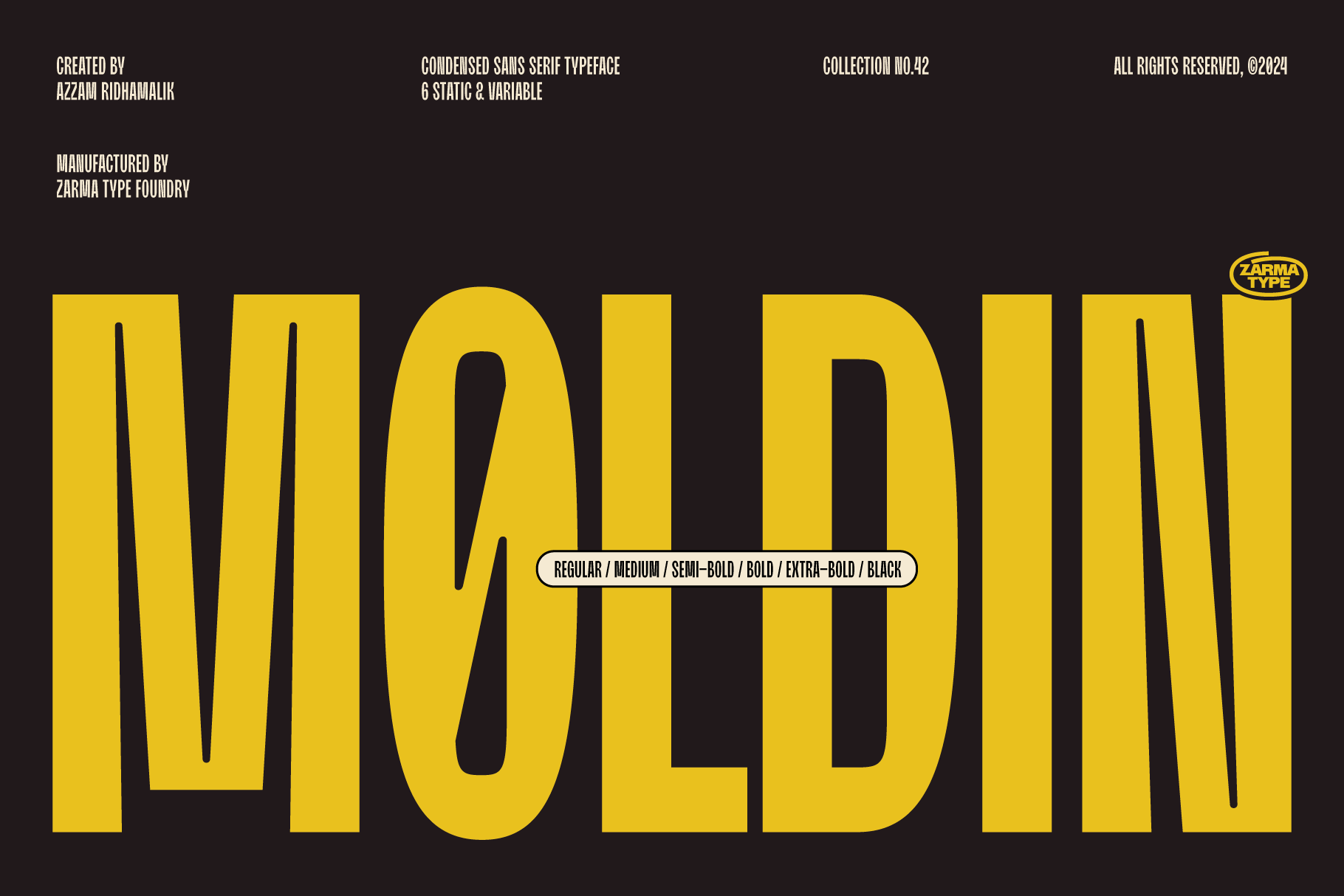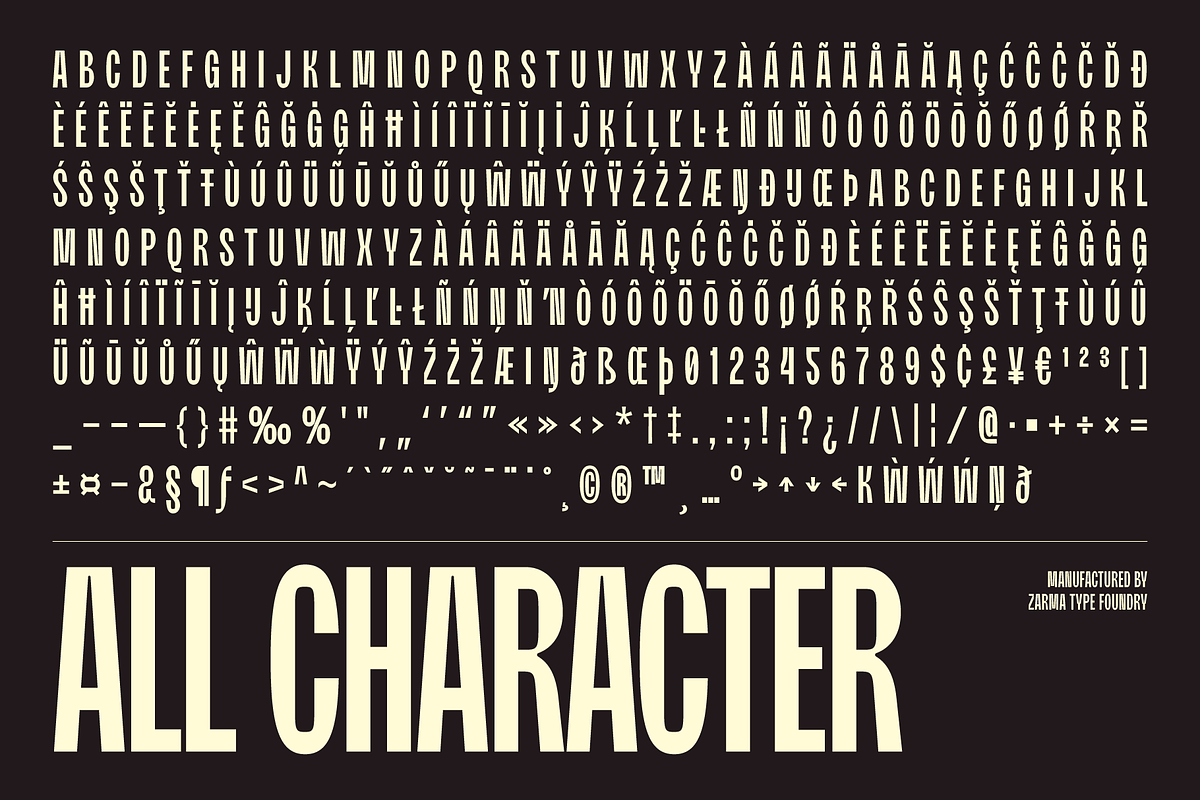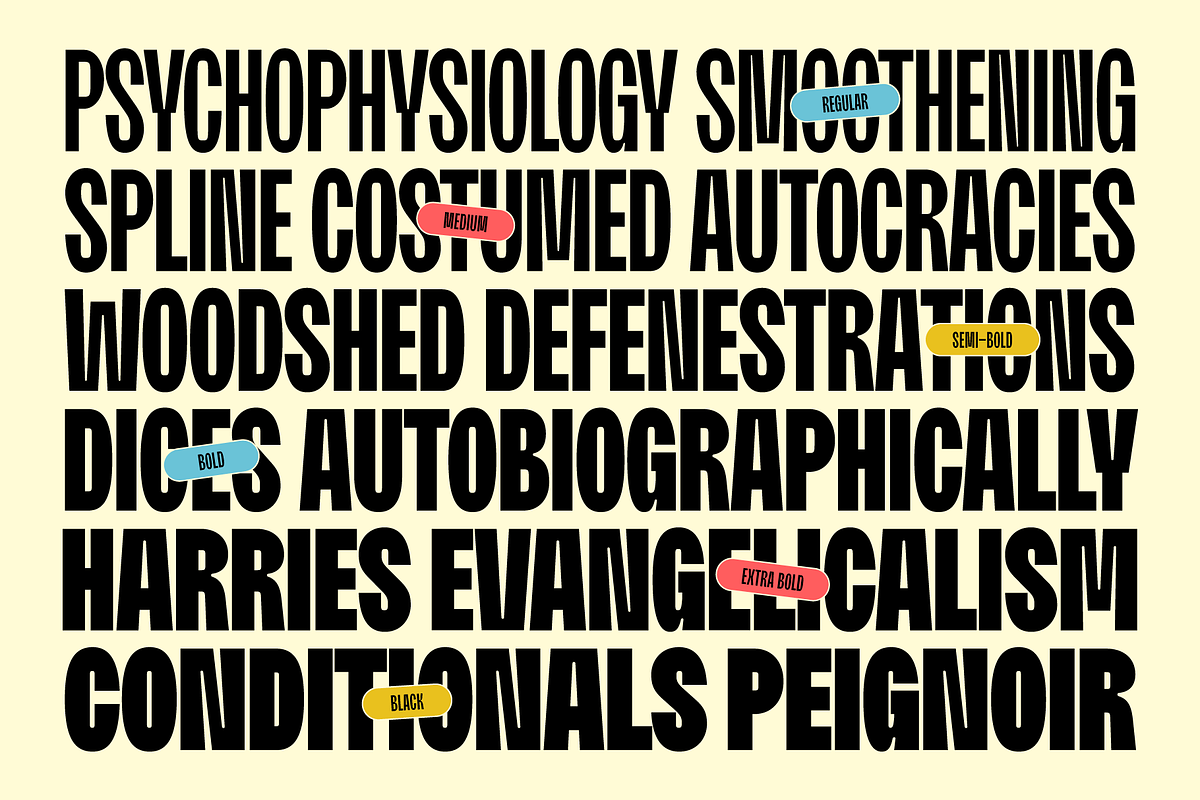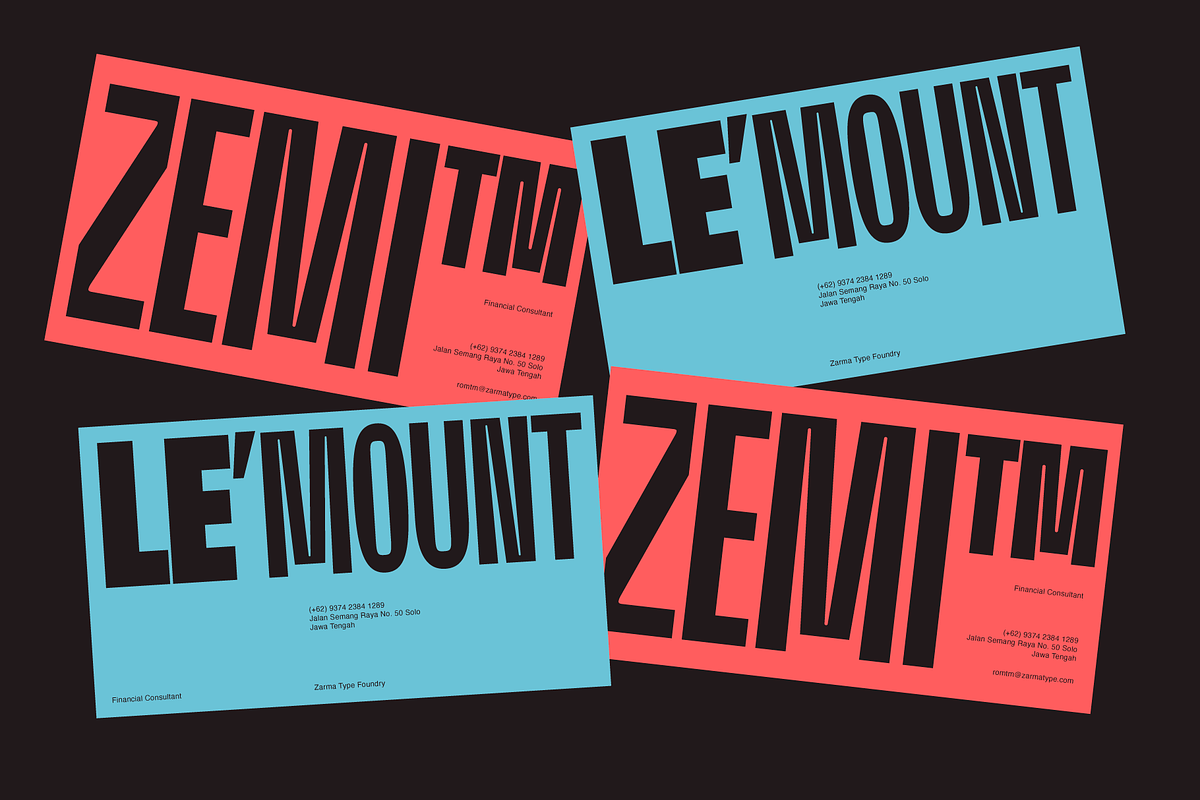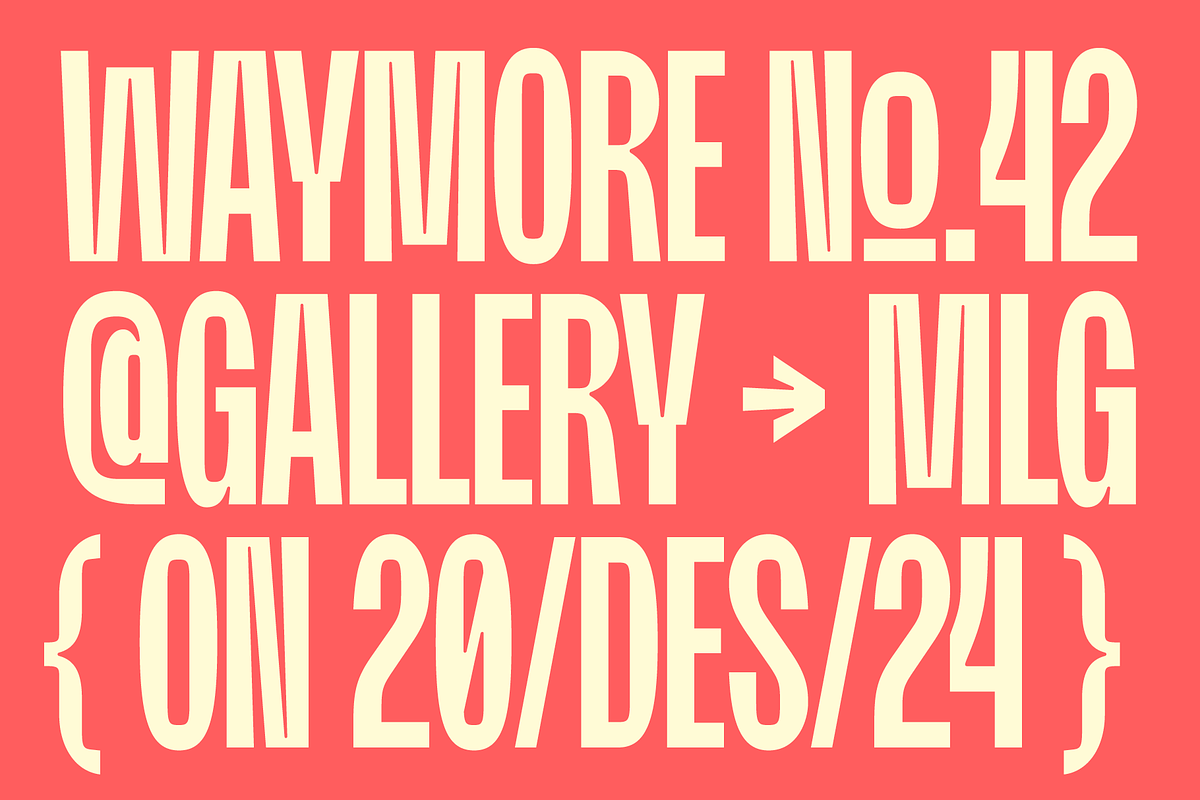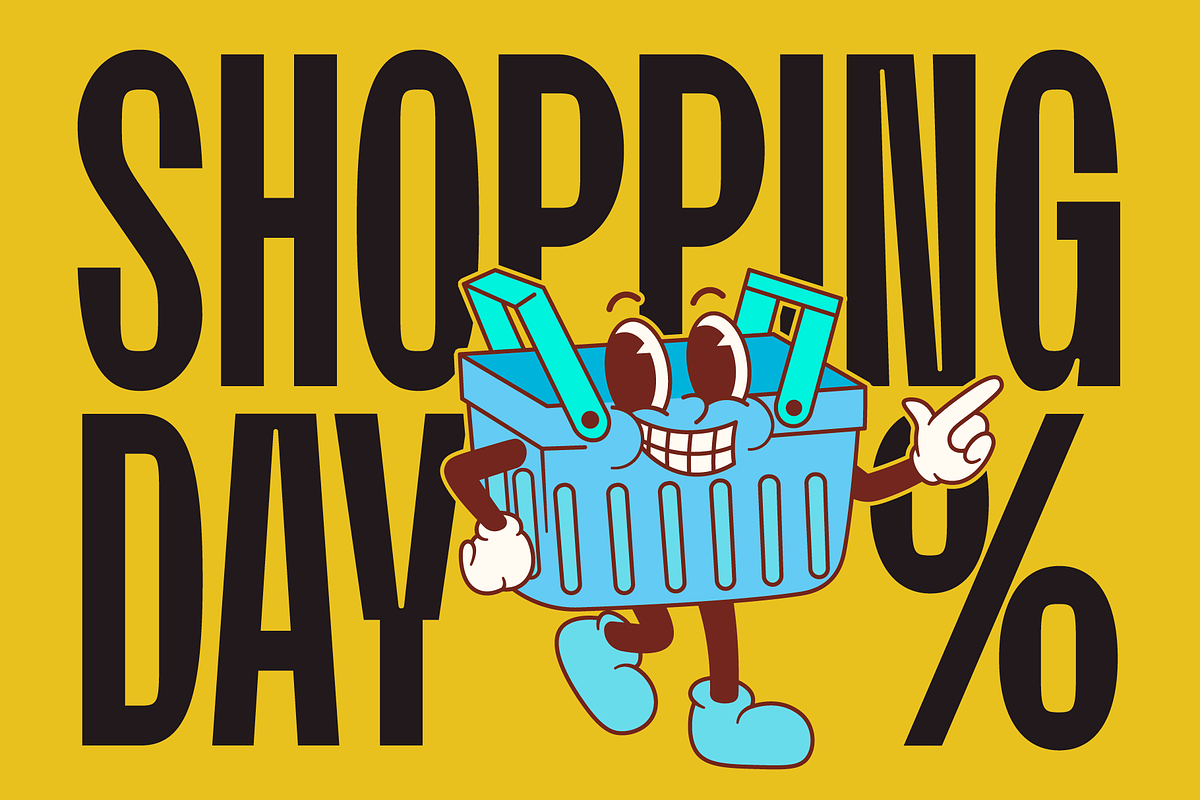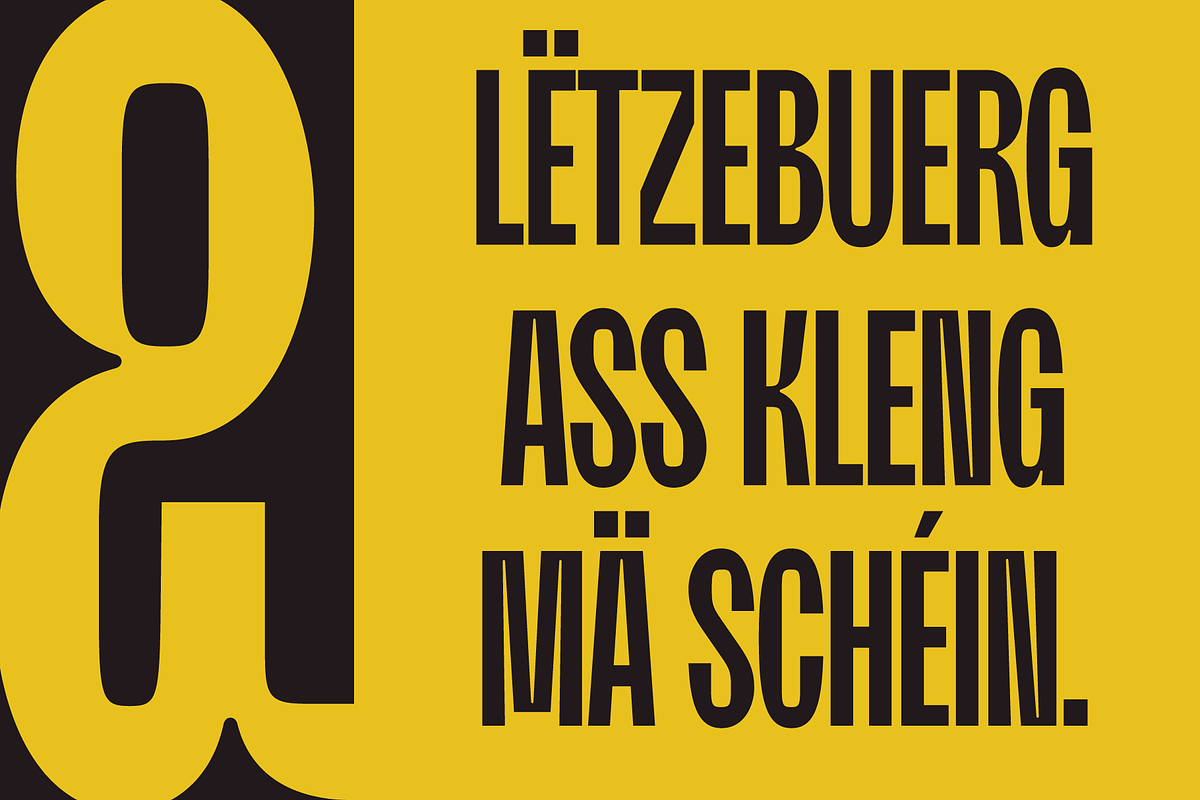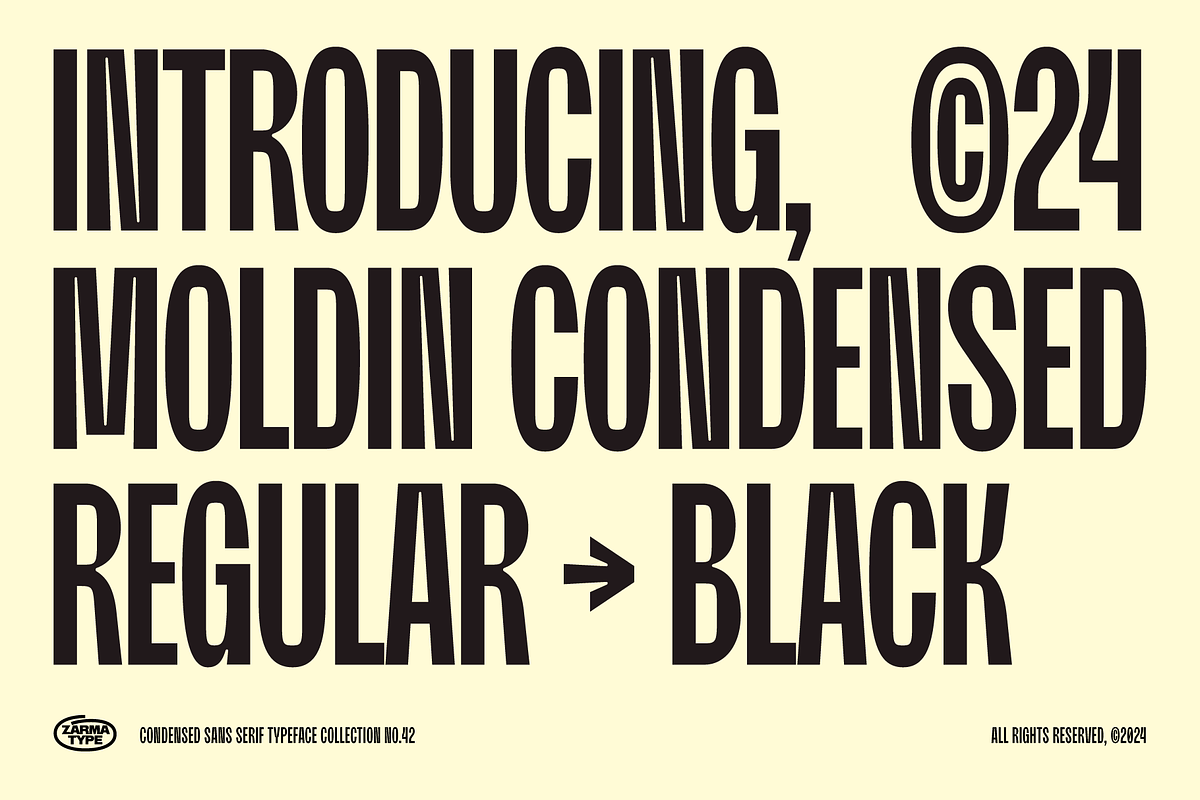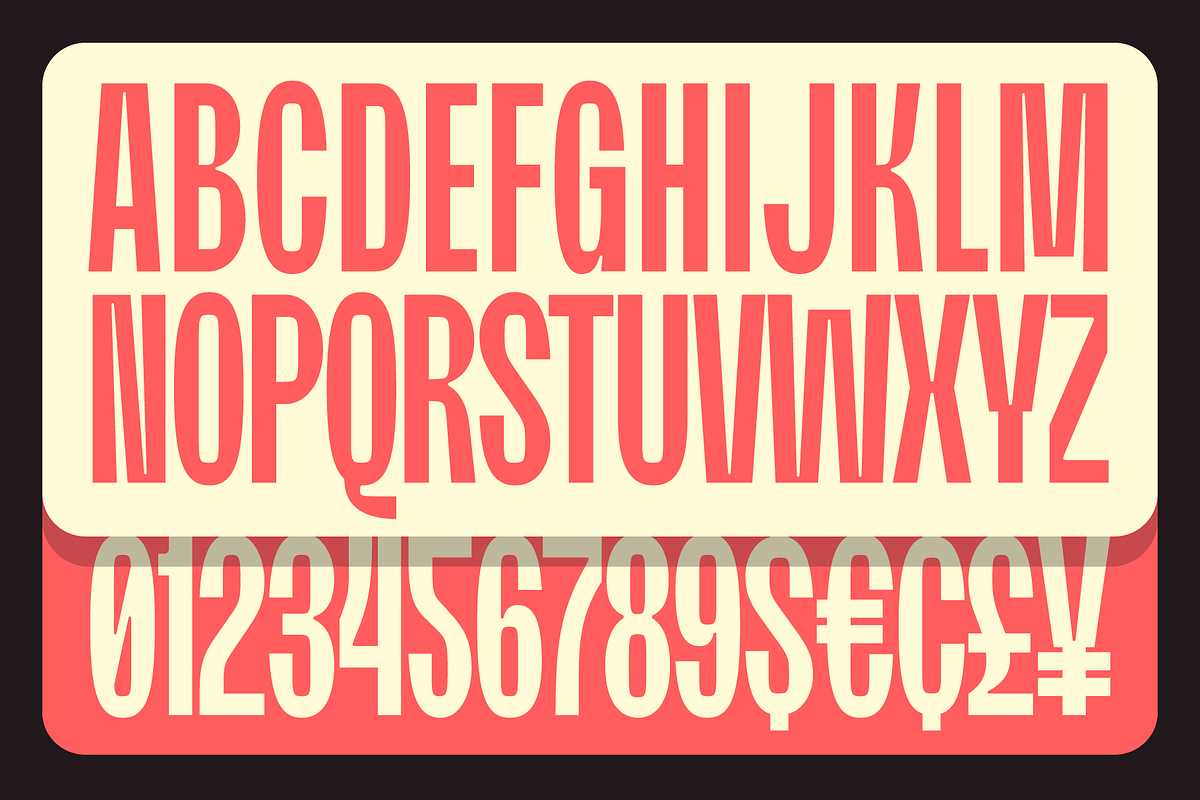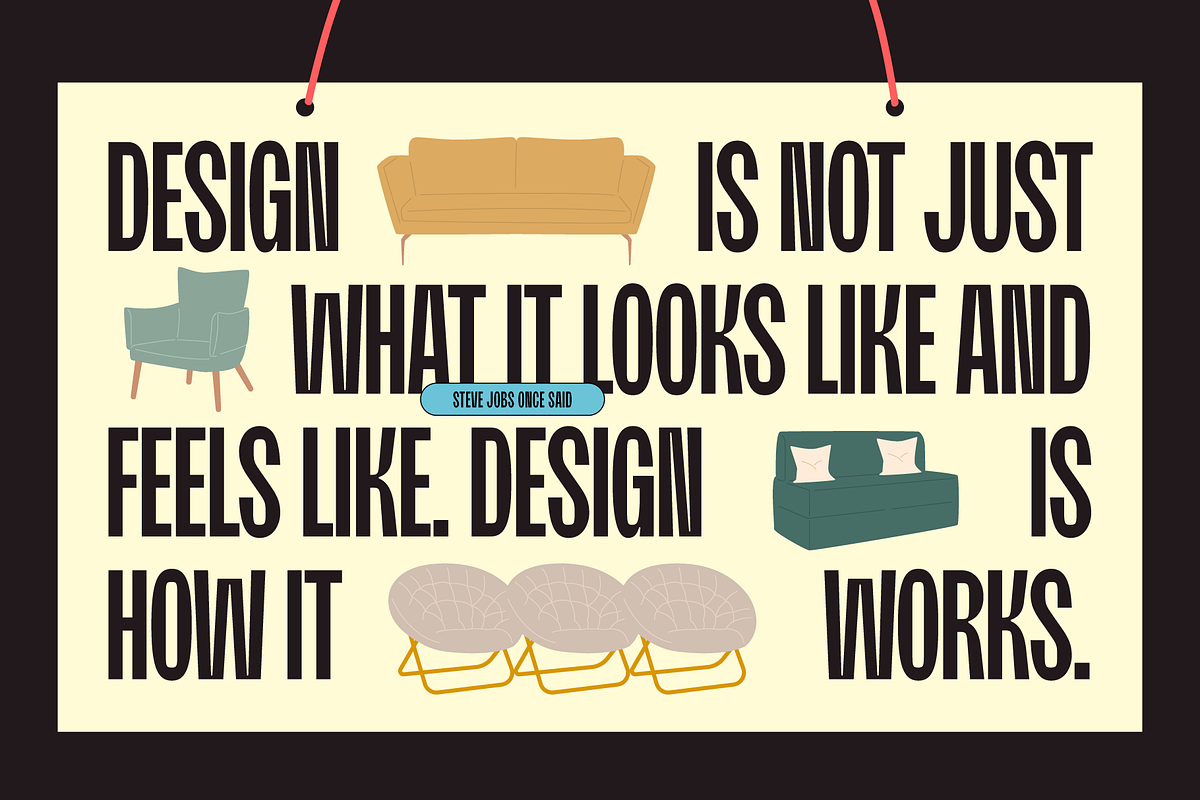
Moldin - Condensed Sans Serif Font
Moldin is a powerful condensed sans serif font family designed for maximum impact in display and headlines. Available in both static and variable formats, this versatile typeface includes 6 carefully crafted weights from Regular to Black, offering precise control for diverse design needs. With its contemporary aesthetics and industrial-inspired geometry, Moldin excels in creating bold statements for branding, posters, editorial designs, and digital media.
Each weight has been meticulously crafted with optimal kerning and spacing, ensuring excellent legibility even in condensed forms. The font family includes an extensive character set supporting multiple languages, making it a global design tool. Moldin's clean, modern letterforms are enhanced with specialized OpenType features for professional typography applications.
- Branding and logo design
- Headlines and display text
- Editorial design (magazines, posters)
- Digital media (websites, social media)
- Sports/athletic branding
- Product packaging
- 6 weights: Regular, Medium, Semi Bold, Bold, Extra Bold, and Black
- Extended Latin
Whether you're designing for print or digital, creating impactful headlines or sophisticated branding, Moldin provides the perfect balance of strength and versatility.